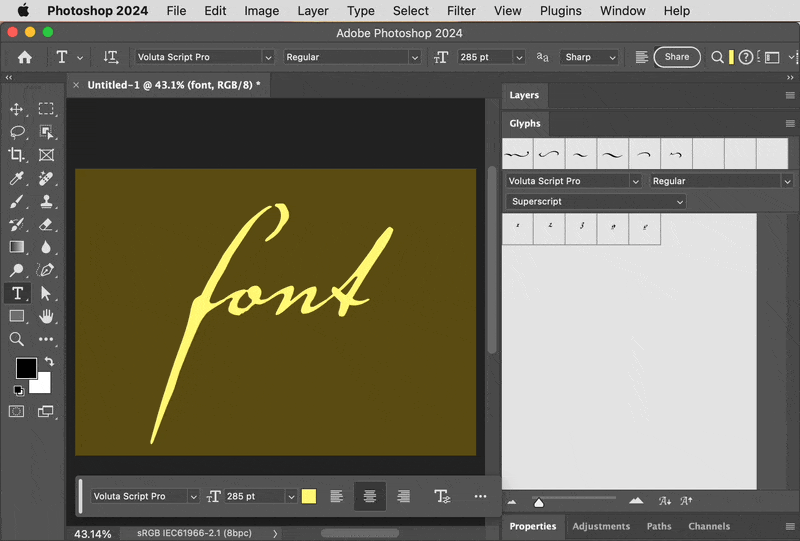
Can someone tell me how to make a cursive font have identical "tails" in the beginning and end of the words in photoshop, please? I will provide an example.
I can't think of any easy ways.  You can convert the text layer to a Shape layer, and edit its points.  If you do one end and select and copy the added points, you can copy (Ctrl c) Paste to a new work path so you can transform them.  The select and paste back to the original shape layer.  Probably not a task for beginners, but it wouldn't take long if you are OK with the pen tool.
These are the steps in the demo below:
1. Use a font that has lots of alternate characters, especially ornaments. If you are not sure if a font has alternates, look in the Glyphs panel. Cheap or free fonts might not include ornaments. You will probably find ornaments in high quality script fonts; the one I used is from Adobe Fonts which is included with your Creative Cloud subscription.
2. Add appropriate ornaments as the first and last character. If there are gaps between characters, reduce the Kerning value to close up the gaps. In my example you can see that the end ornament fit perfectly right away with no adjustment needed, but the start ornament needed a slight reduction in kerning.
If you do not like any of the ornaments, or if none are available for the font you want to use, you can always draw them yourself with a Pen tool. Or, you can select the type layer, choose Type > Convert to Shape, and use path editing tools to customize the character shapes in any way you like. Those steps are not shown.